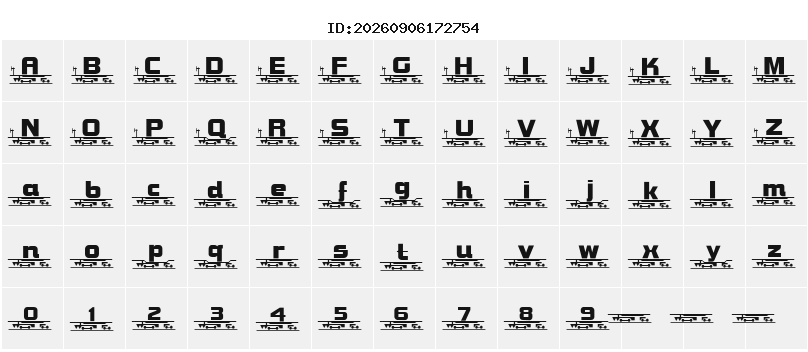
TQF_WordTrain.ttf is a modern, elegant sans-serif font designed for ultimate readability and visual harmony. Perfect for branding, headlines, web design, and print materials.